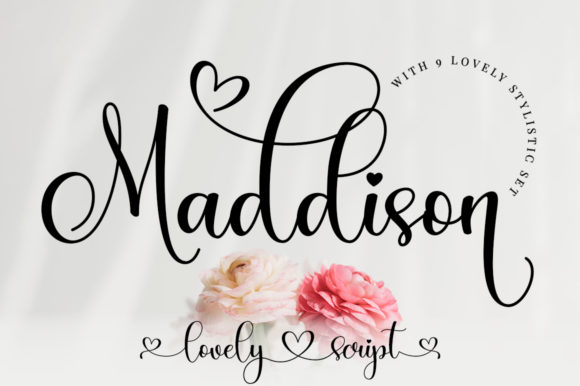
Looking for a romantic and sweet font to add to your collection? Look no further than Maddison Font by Typesthetic Studio! This calligraphy typeface is perfect for adding a touch of elegance to any project.
The characters of Maddison Font dance along the baseline, creating a playful and whimsical feel that's sure to capture the attention of your audience. This font is PUA encoded, making it easy to access all of the glyphs and swashes, so you can customize your designs to your heart's content.
Whether you're designing invitations, creating a logo, or just adding some flair to your social media posts, Maddison Font is the perfect choice. Its casual yet elegant touch will give your projects a unique and sophisticated look that's sure to impress.